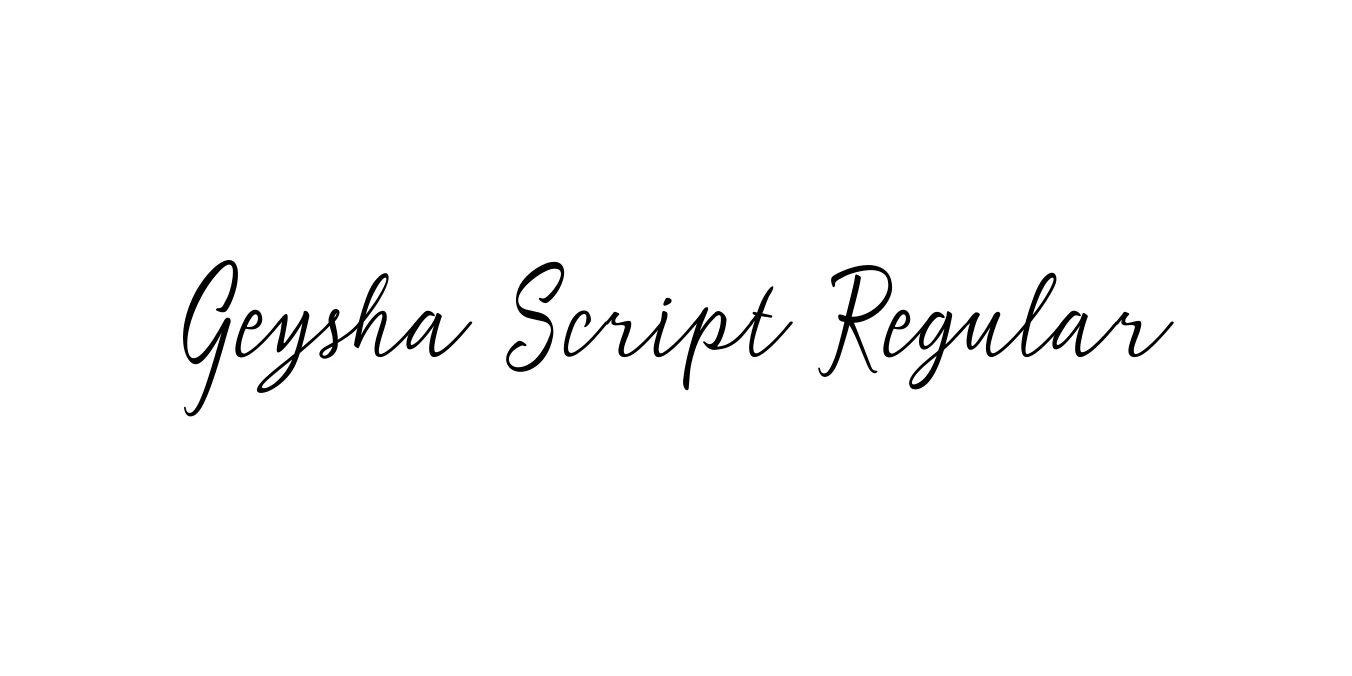
Geysha Script Regular
Designed by Maulana Creative
Geysha Script Regular is an exquisite modern calligraphy typeface designed to bring a touch of elegance and sophistication to any creative project. Developed by Maulana Creative, this font features a beautiful rhythmic flow, characterized by its high-contrast strokes and delicate swashes that mimic the natural movement of a hand-lettered brush script.
Ideal for luxury branding and high-end wedding stationery, Geysha Script offers a timeless aesthetic that bridges the gap between traditional penmanship and digital design. Its versatile nature allows it to stand out in both print and digital media, making it a favorite choice for designers looking to convey a sense of personal touch and artisanal quality in their work.
Geysha Script Regular Best Uses
Perfect for invitations, RSVP cards, and elegant place settings.
Creates a sophisticated brand identity for boutique shops and personal brands.
Excellent for high-end lifestyle quotes and Instagram graphics.
Adds an artisanal feel to luxury cosmetics and premium product labels.